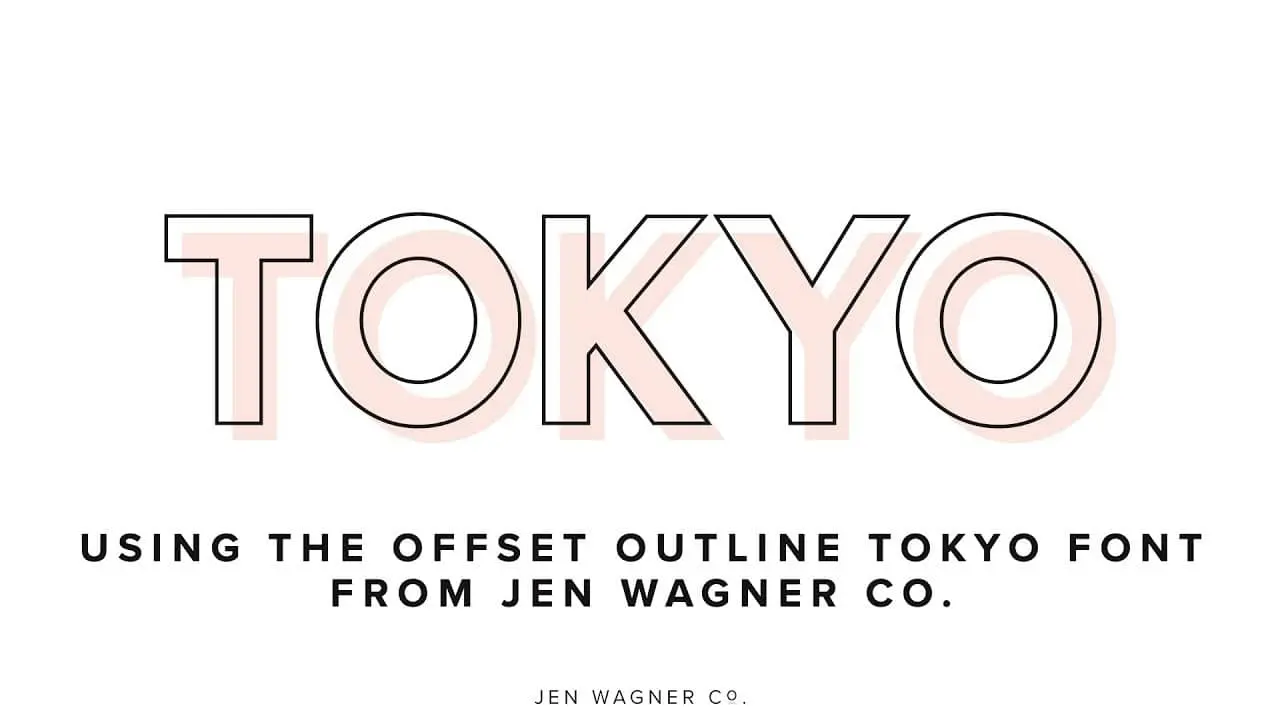
We are introducing a font called Tokyo Font. Tokyo is a bold sans serif font that has the dual nature of both outlined and solid. The main copyright of this font is preserved by Stephensonblake & Co. Richard Austin designed this typeface in the year 1788. So, this is an ancient font.
The outline font mechanically offsets, making it undoubtedly simple to layer those fonts together perfectly. Duplicate your “Regular” layer and switch the setting to “Outline,” The type will automatically offset up and to the right for you!
Tokyo Font is a perfect designer typeface with a beautiful accent that will be an excellent choice for shows, headers, invitations, save-the-dates, weddings, and a lot more. You can use this font and pair it with Lazer font.
You can easily use this typeface in various projects and sectors like animating logos, office branding, Title sequences, end credits, app design, postcards, flyers, theme design, magazines, etc.